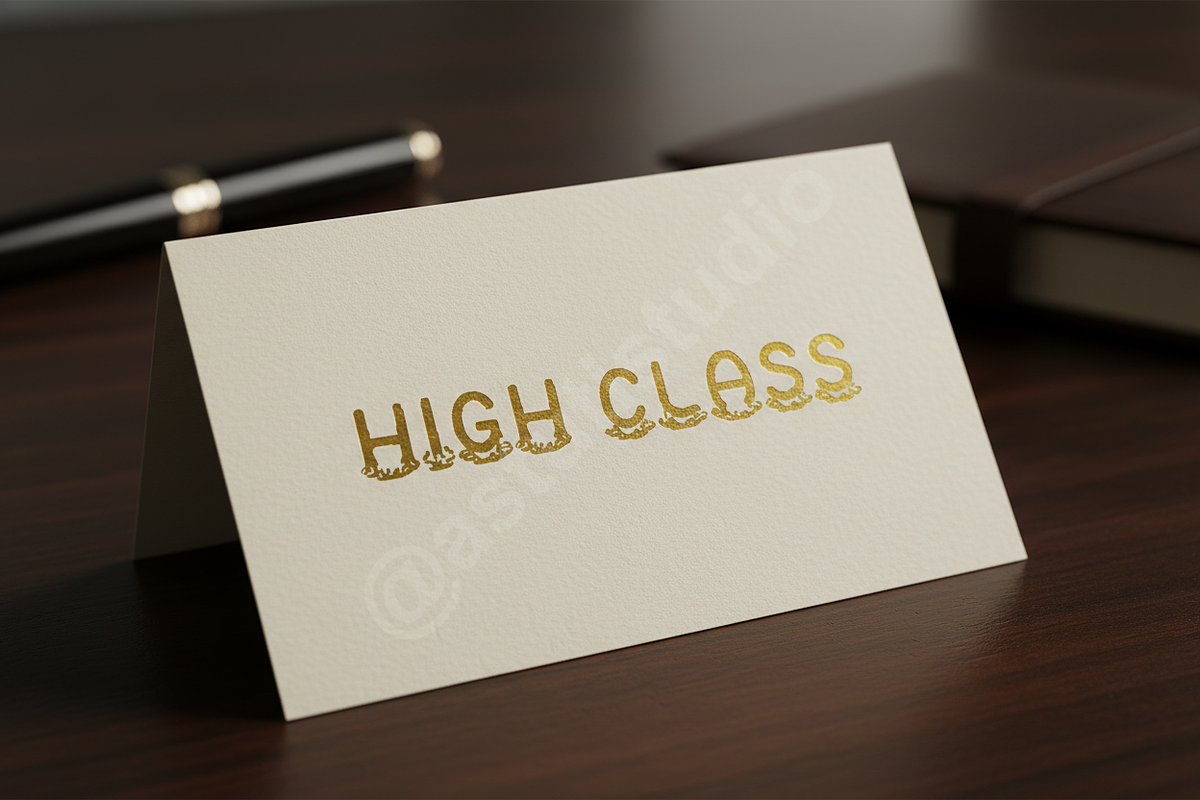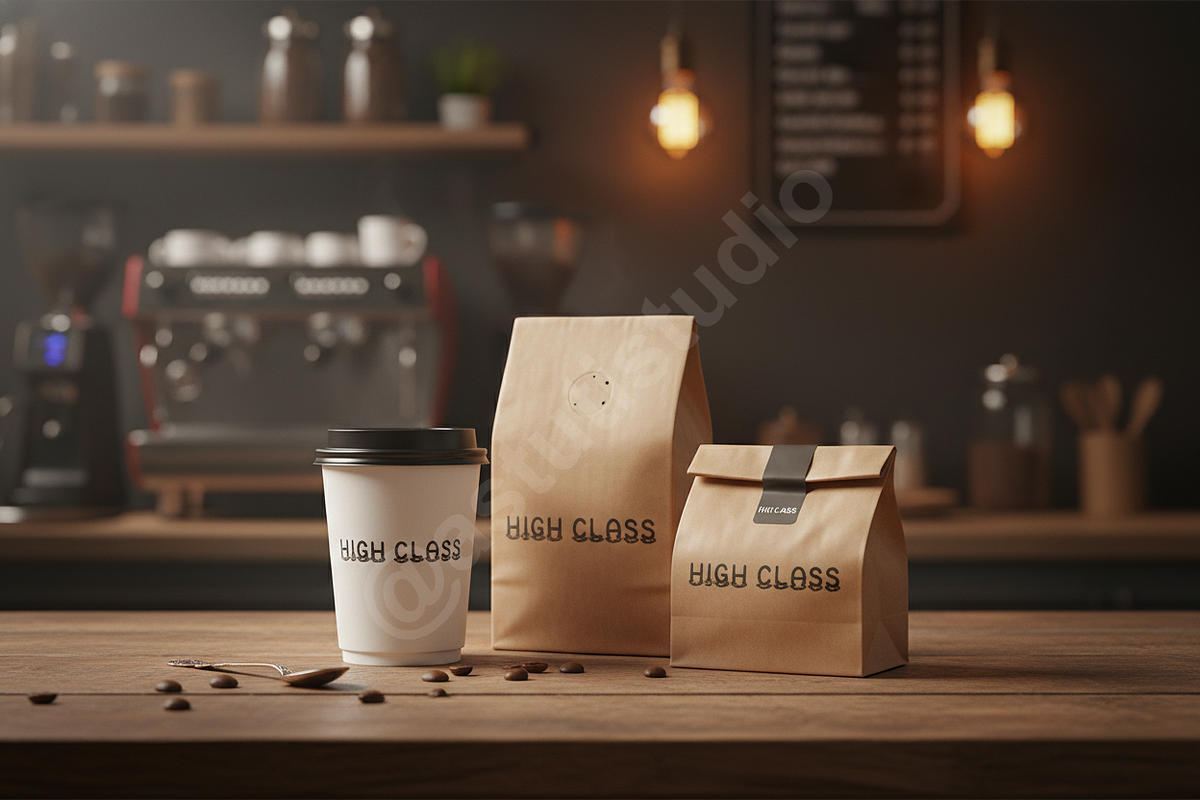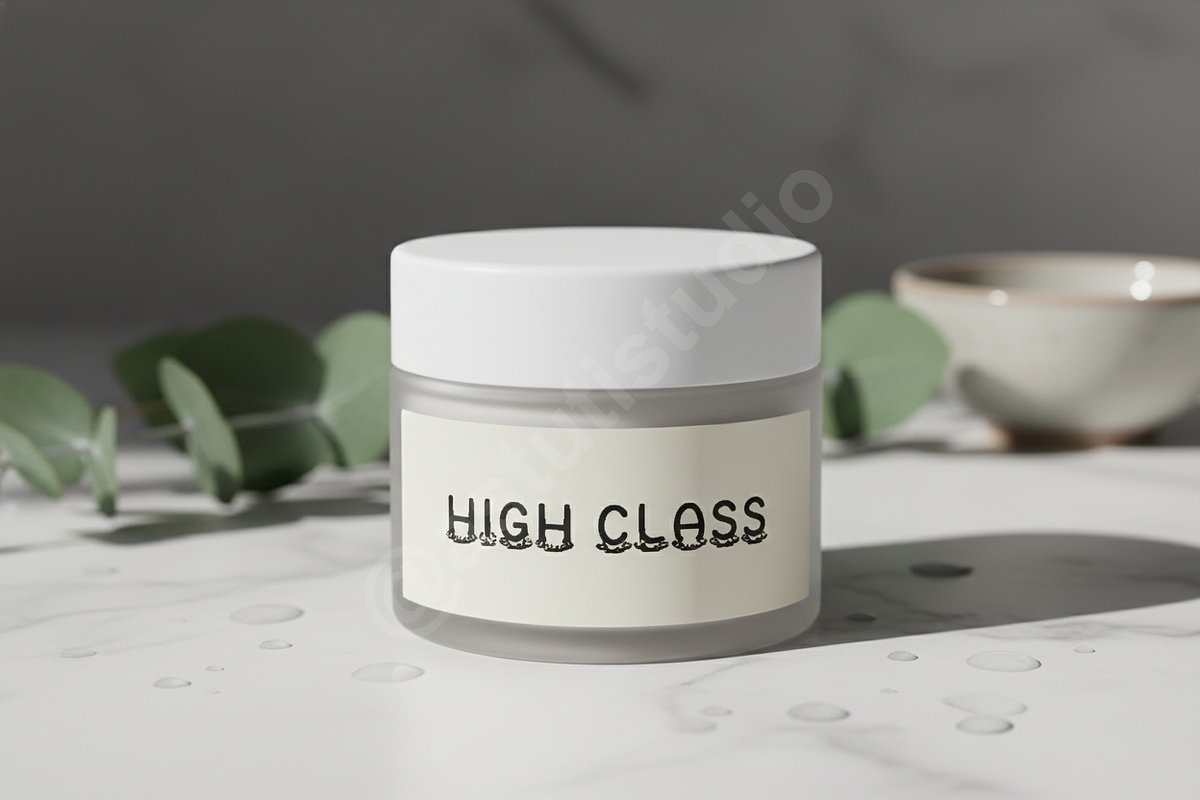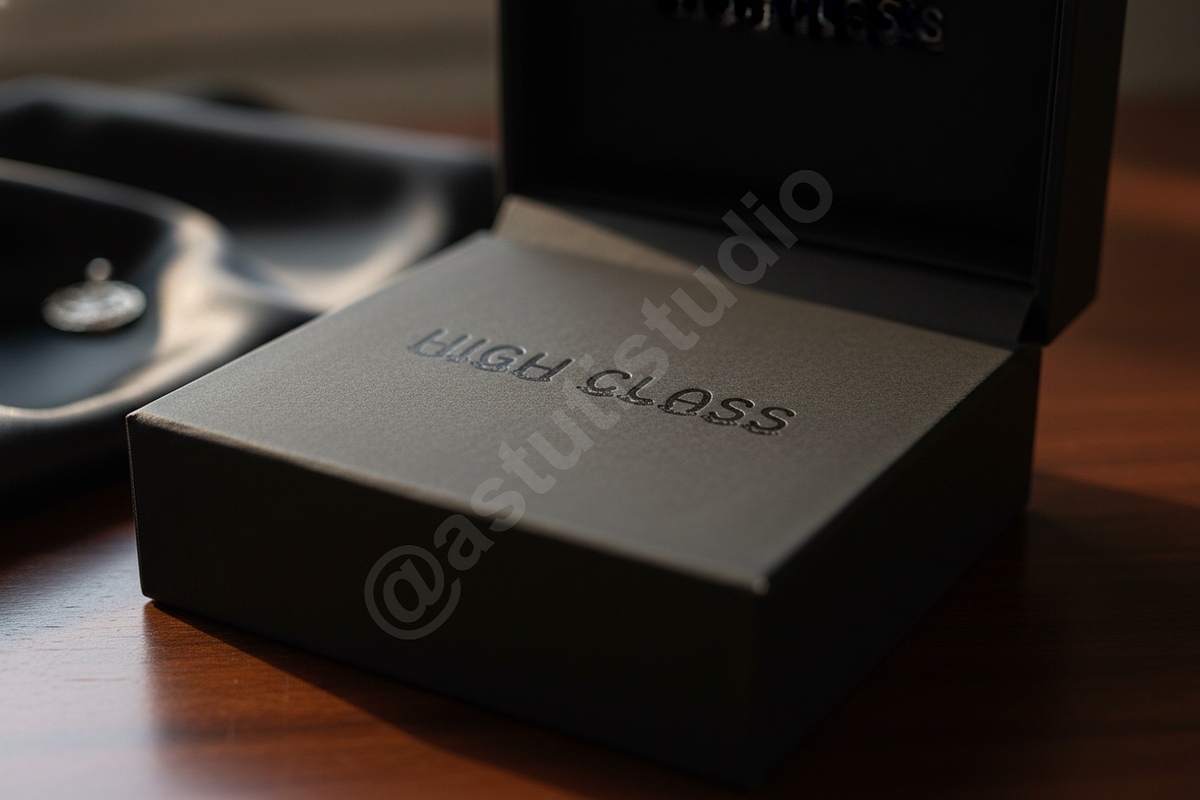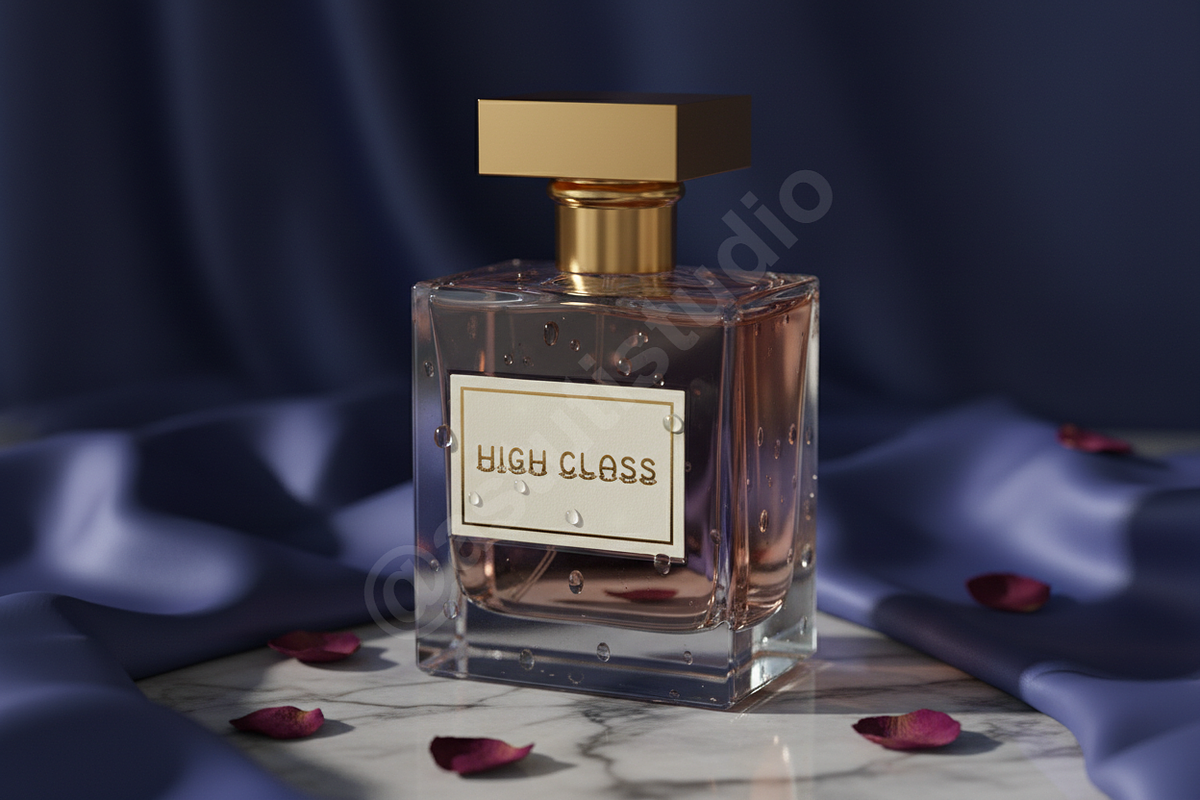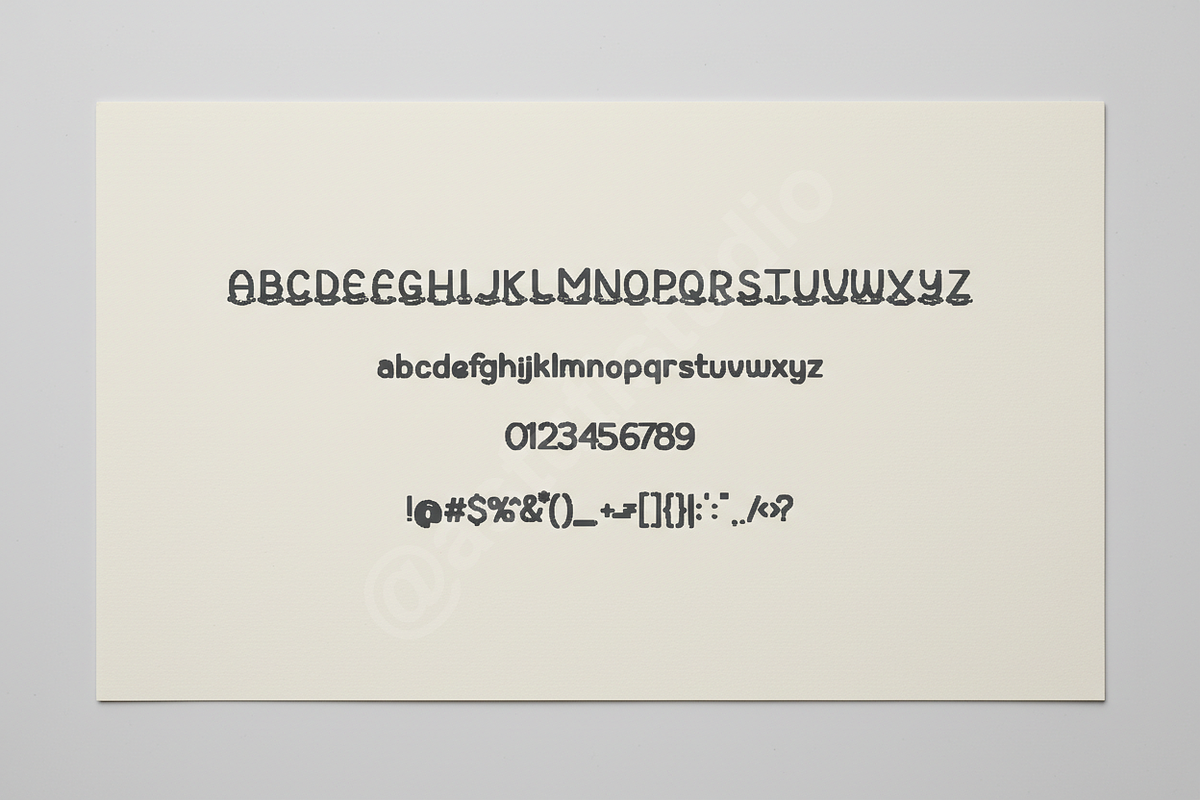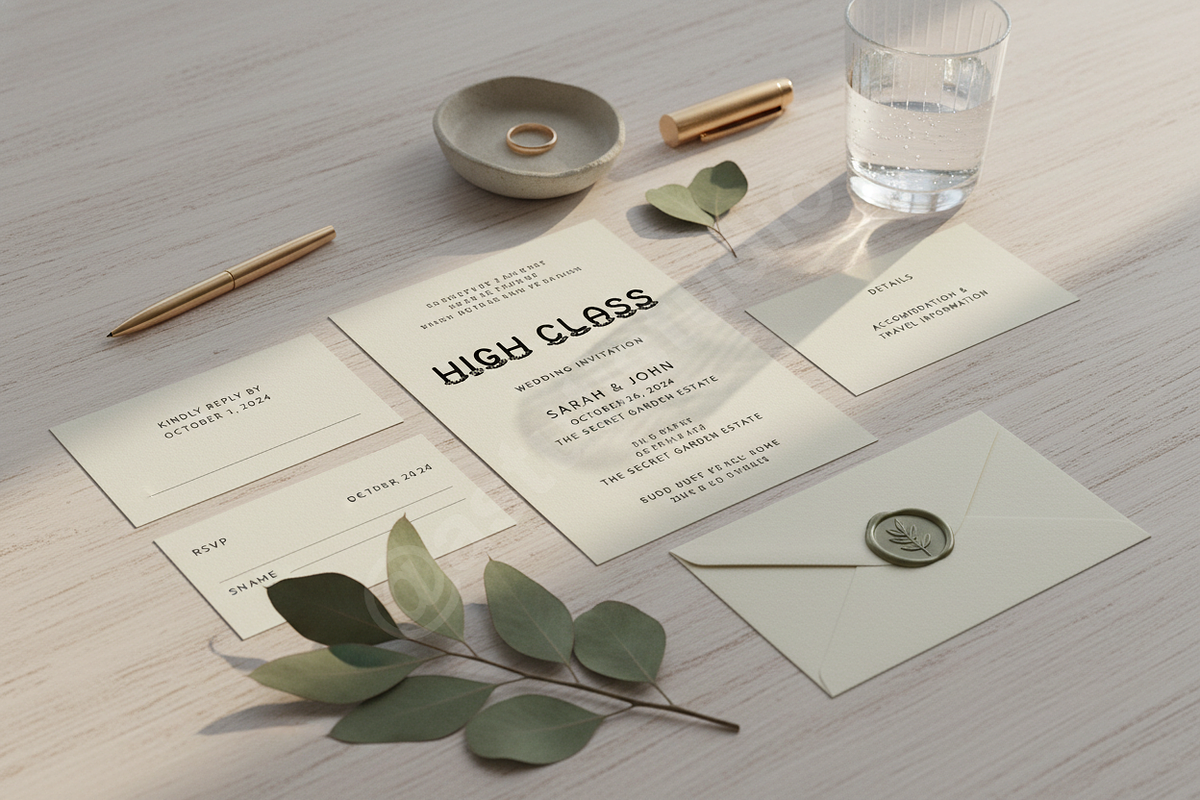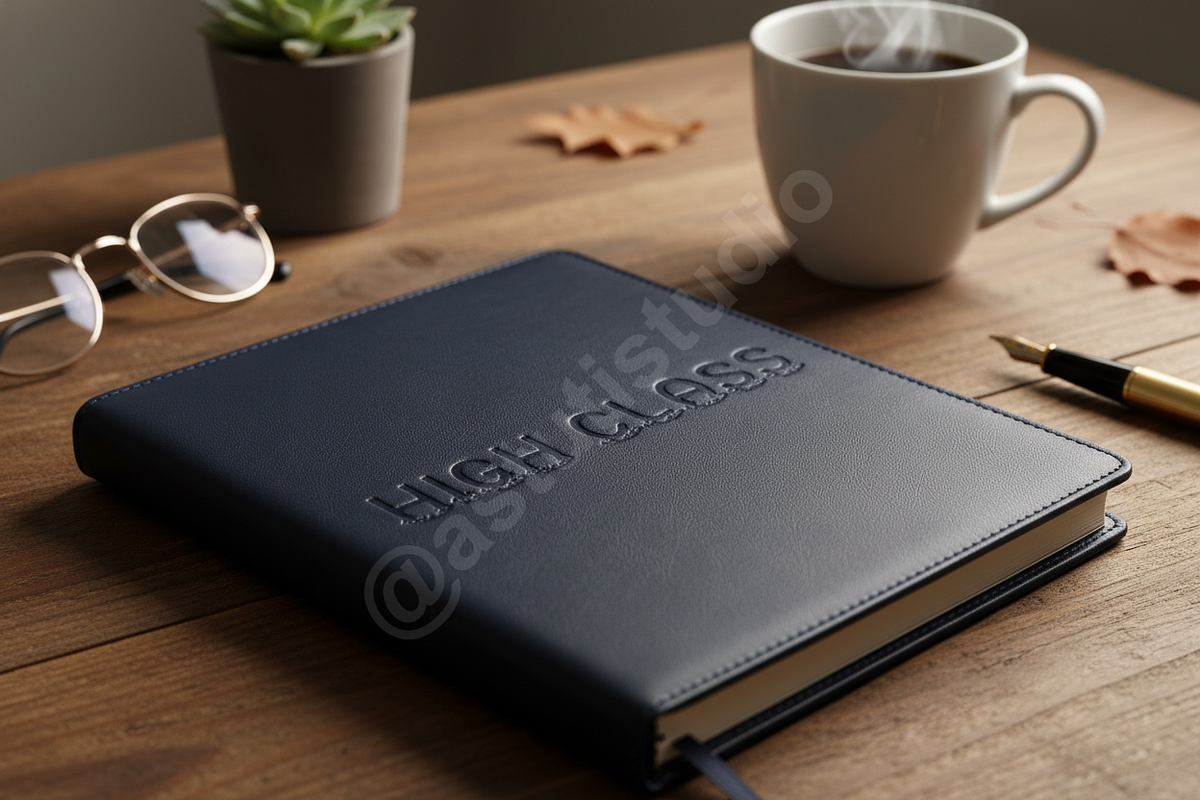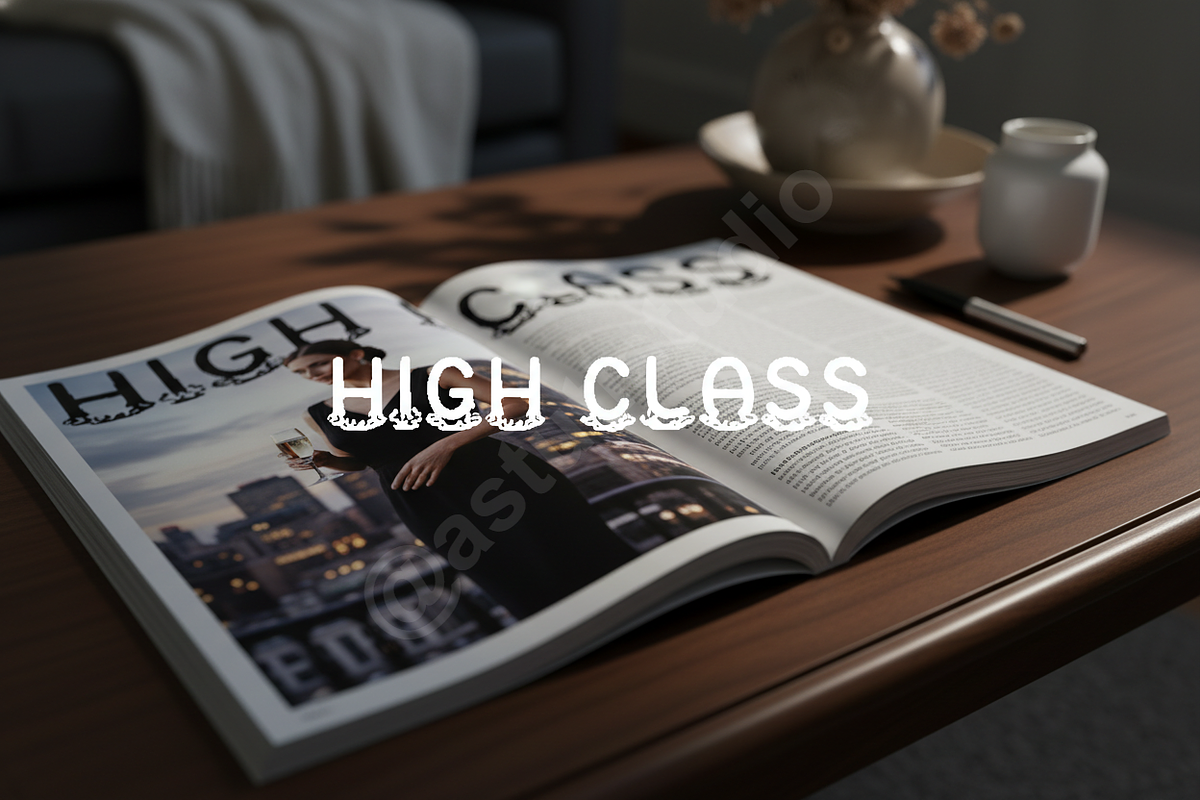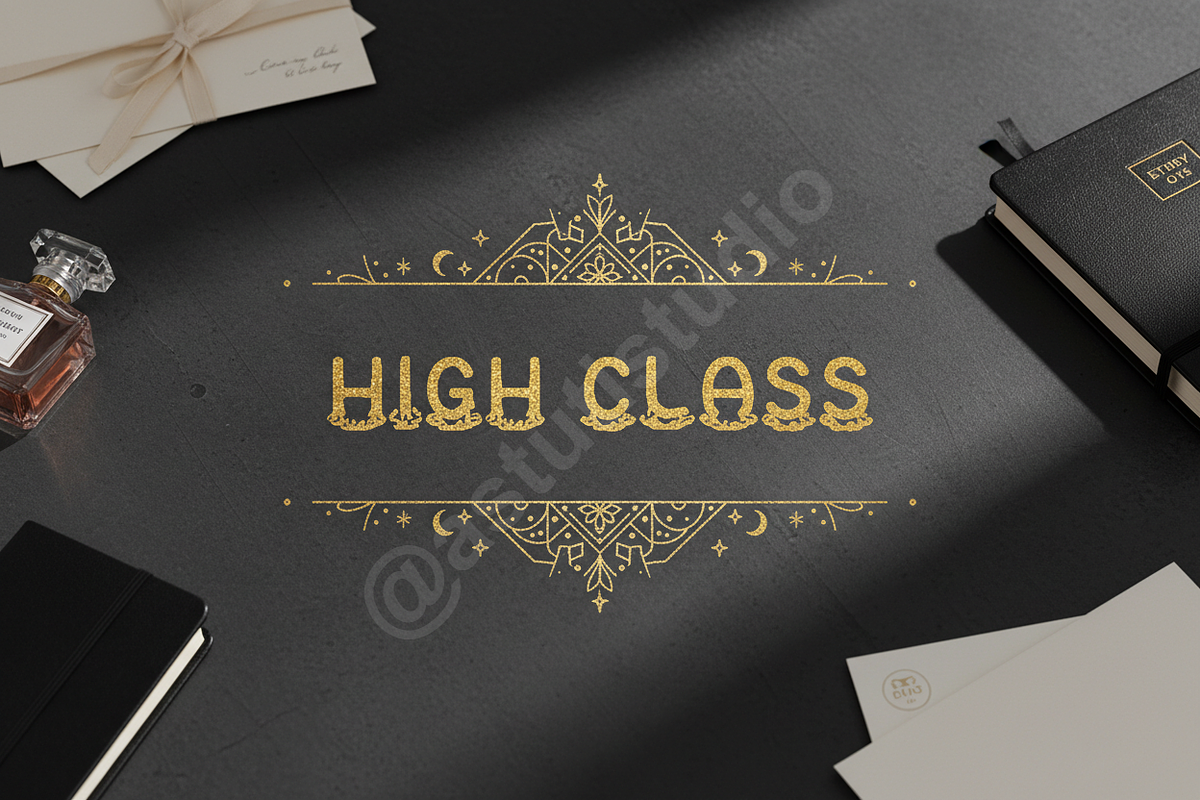
Foheke - Modern Elegant Display Seri
Foheke is a meticulously crafted modern serif typeface designed for discerning creatives seeking refined elegance and timeless style. Its balanced letterforms, high contrast, and subtly sharp serifs make it the quintessential choice for projects requiring a sophisticated visual presence. Foheke effortlessly bridges the gap between classic editorial layouts and modern digital luxury, making it a powerful asset for premium branding.
- Luxury Aesthetic: High-contrast lines are perfect for exclusive branding, upscale retail, and high-fashion communication.
- Editorial Grade: Optimized for optimal readability in large-scale headlines and complex magazine layouts.
- Web Ready: Optimized performance for digital platforms, social media campaigns, and elegant e-commerce sites.
- Multi-Lingual Support: Extensive glyph coverage for global reach.
- OpenType Features: Includes standard ligatures and necessary stylistic alternates for custom typographic treatments.